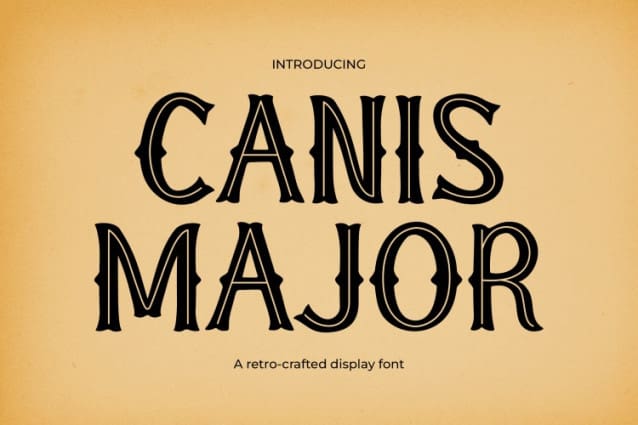
Canis Major Font
Canis Major Font is a retro-crafted display font that combines vintage aesthetics with a modern twist. Its bold and decorative letterforms make it perfect for designs aiming to make a strong artistic statement. The intricate details in each character reflect craftsmanship and authenticity. This makes it an excellent choice for projects that value sophistication and timeless charm. Whether you want to add old-school flair or create a bold visual impact, Tattoo Font Canis Major delivers on all fronts.
The font’s design draws heavily from retro and tattoo art styles, giving it a striking and memorable appearance. Its balanced curves and elegant strokes ensure a blend of readability and creativity. As a result, it stands out in headlines, logos, and branding materials while maintaining elegance. Its versatility allows it to work for both traditional and modern projects. It bridges the gap between classic and contemporary styles with ease.
Canis Major is a fantastic choice for tattoo artists looking to add bold and decorative lettering to their designs. Its vintage-inspired aesthetic makes it ideal for timeless tattoo styles. Whether you’re crafting classic designs or intricate motifs, this font adds sophistication to every piece.
For vintage brands, this font is a game-changer. Its retro charm is perfect for industries like fashion, beverages, and home decor. It works beautifully for logos, packaging, and promotional materials. By using this font, brands can evoke nostalgia and elegance while standing out.
Creative designers will also find Tattoo Font Canis Major invaluable for posters, event invitations, and branding. Its bold yet intricate style makes a strong visual impact. For example, it’s great for retro album covers or ornate wedding stationery. It adapts to various artistic visions, making it versatile for many projects.
In conclusion, Tattoo Font Canis Major blends retro aesthetics with modern functionality. Its artistic flair makes it a must-have for tattoo artists, vintage brands, and creative professionals. Whether you’re designing tattoos, creating elegant branding, or working on unique visuals, this font adds timeless appeal to any project.